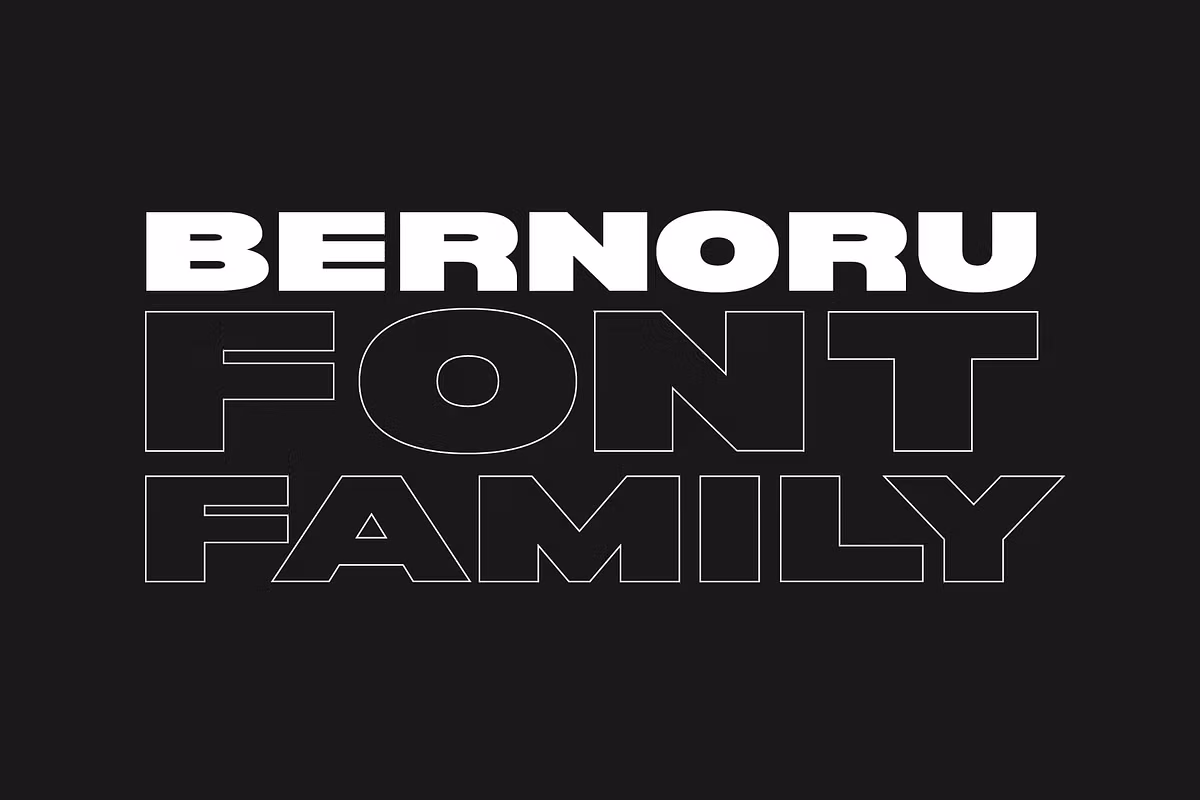
Please note that you must purchase this font family for commercial use. You can download Bernoru Sans Font Family for free, strictly for personal testing purposes only. Bernoru is a clean, modern sans-serif font family designed for versatility and professional use. With a wide range of weights and styles, Bernoru Sans Font Family Free Download is perfect for everything from corporate branding and editorial design to logos, websites, and social media graphics.
The font family includes various weights, from light to bold, giving you flexibility to create visually appealing and well-structured designs. It includes uppercase and lowercase letters, numerals, punctuation, and multilingual support, offering broad usability for a variety of global projects.
Whether you're designing for a sleek tech brand, creating professional business materials, or developing a modern website, Bernoru adds clarity, sophistication, and readability to your typography.